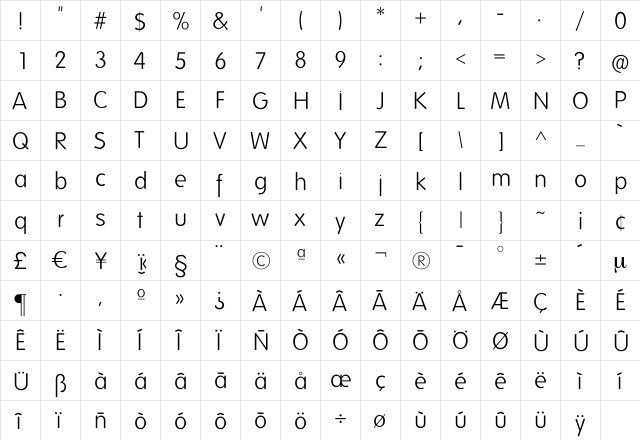
Folks-Light Regular Font Preview
Folks-Light Regular
Design Context for Folks-Light Typeface
Folks-Light is a composed and adaptable typeface that performs quietly and consistently across a wide range of design contexts. The delicate stroke weight brings airiness and refinement to layouts.